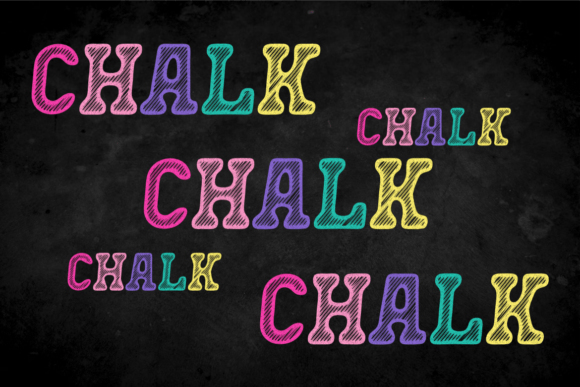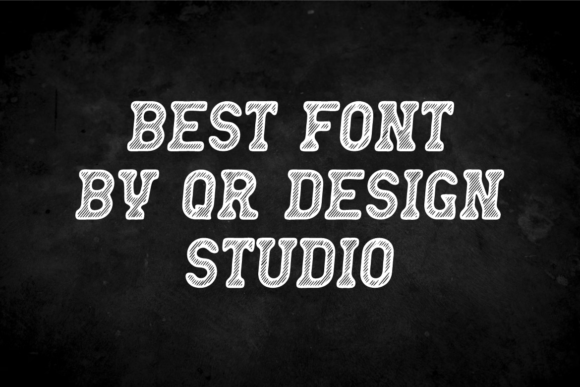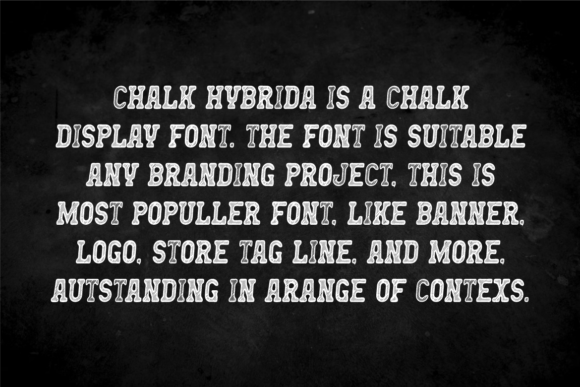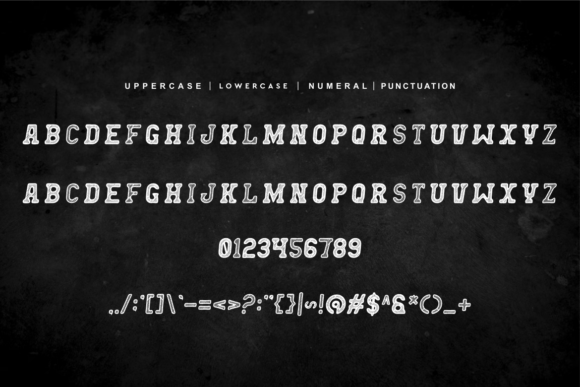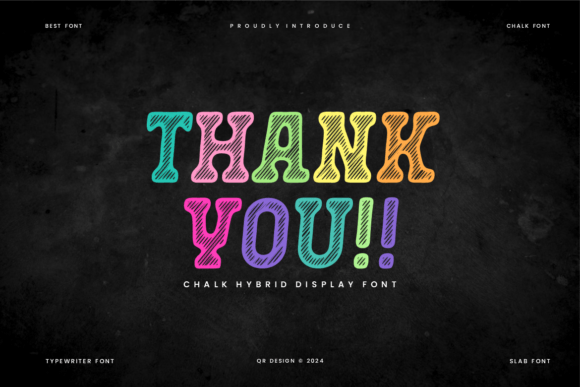
The Perfect Blend of Quirkiness: Unlocking the Magic of Chalk Hybrida Font
Have you ever stared at a blank canvas, feeling the creative juices coursing through your veins, only to struggle with the perfect font to bring your vision to life? It’s a moment we’ve all been in, where the excitement of a new project is tempered by the daunting task of choosing the right typography. But what if I told you that there’s a font that can add an instant injection of joy and whimsy to your designs?
Meet Chalk Hybrida Font, a charming display font that’s guaranteed to put a smile on your face. This delightful font is the perfect blend of playfulness and sophistication, making it a valuable addition to any designer’s toolkit. Whether you’re working on a children’s book, a wedding invitation, or a social media campaign, Chalk Hybrida Font is sure to add that extra special something that sets your designs apart.
Chalk Hybrida Font Key Features
- Font Family: Chalk Hybrida, a unique, hand-drawn font with a hybrid feel, blending chalkboard and modern elements.
- Character Count: 750+ glyphs, including Latin, Cyrillic, and Greek alphabets, as well as various punctuation marks and symbols.
- Unique Characteristics: Chalk Hybrida features a distressed, worn look with subtle texture and imperfections, adding a touch of nostalgia and personality to designs.
Chalk Hybrida Font Review
Overall, I’m quite impressed with the Chalk Hybrida Font. ✨ The font’s distressed texture gives it a unique, vintage feel that’s perfect for creative projects. It’s also highly customizable, with a range of weights and styles available to suit different design needs.
- The font’s bold and italic styles work particularly well for headings and titles, adding a touch of sophistication to any design.
- The font’s distressed texture adds a layer of depth and visual interest to designs, making it perfect for creative and artistic projects.
- The font is highly customizable, making it easy to adapt to different design needs and styles.
However, I do have a few reservations about the font. ⚠️ The font’s readability can be affected by the distressed texture, particularly at smaller font sizes. Additionally, the font may not be suitable for designs where clarity and precision are paramount.
Overall, I would highly recommend the Chalk Hybrida Font for creative and artistic projects. While it may have some limitations, its unique texture and high customizability make it a valuable addition to any designer’s toolkit.
Getting the Most Out of Chalk Hybrida Font
To get the most out of Chalk Hybrida font, try the following tips:
- Use it for titles and headings to add a touch of elegance.
- Pair it with other fonts to create a unique and interesting typography.
- Experiment with different font sizes and colors to achieve the desired effect.